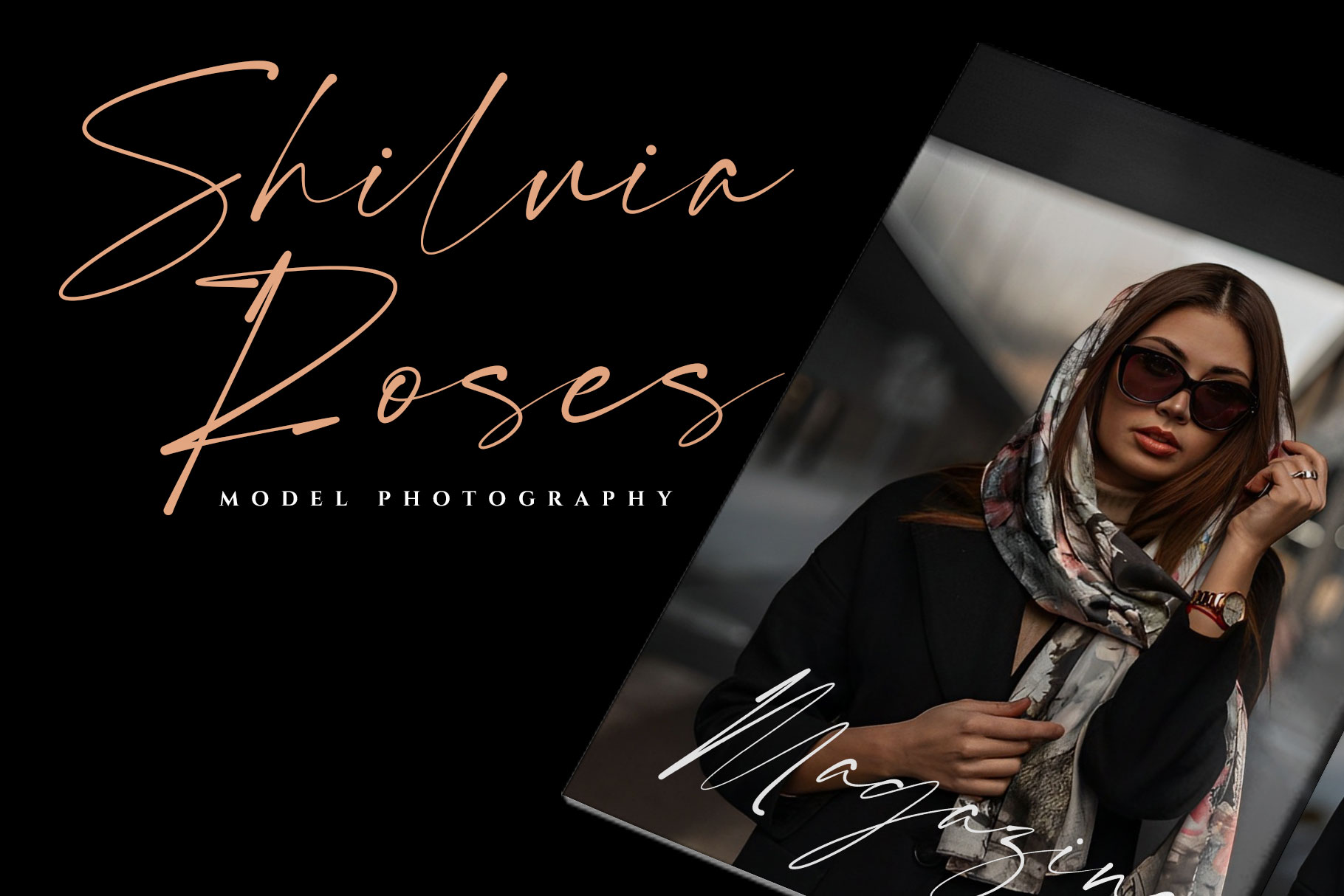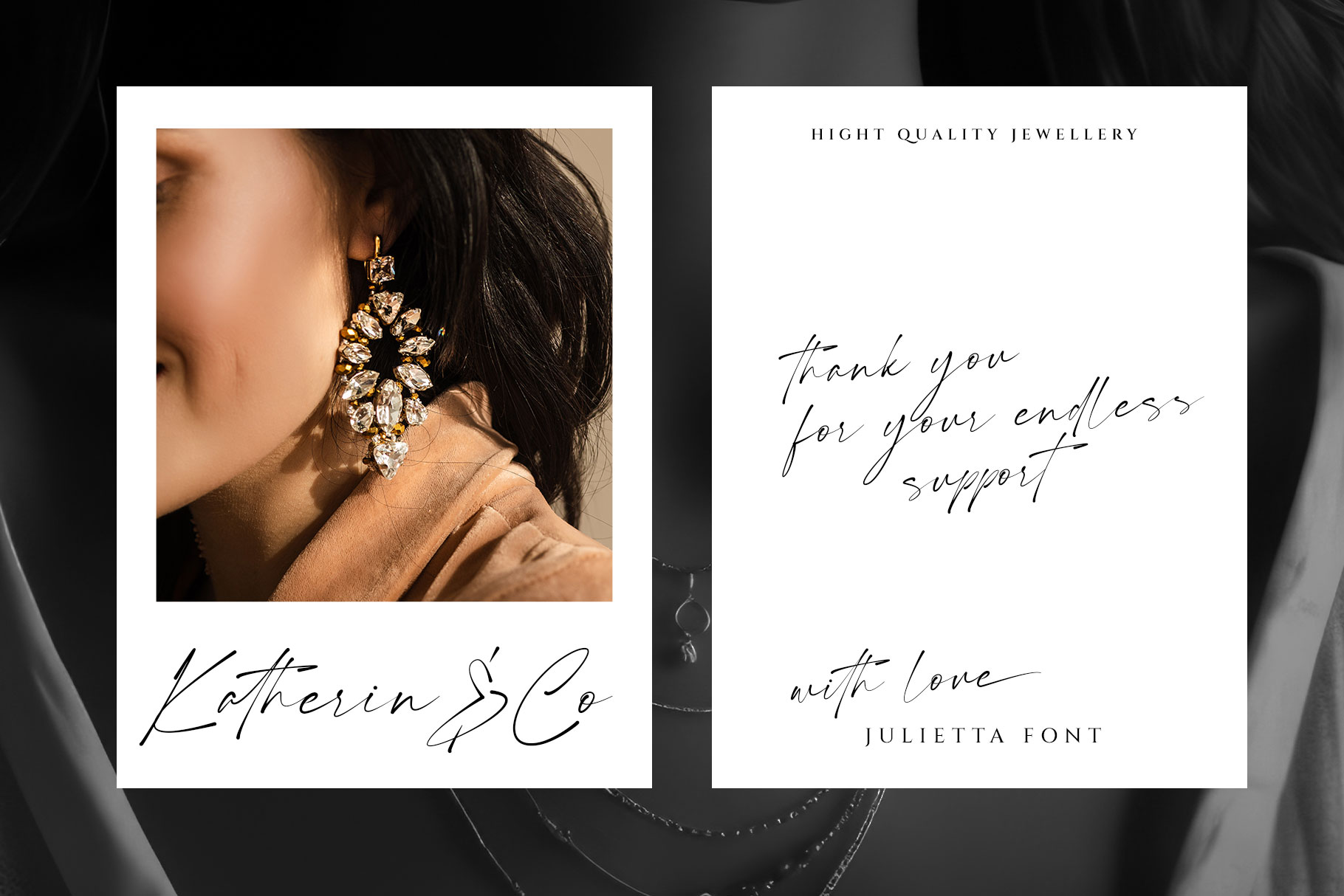
Jullieta is signature font embraces elegance and grace. Jullieta come with stylish curve and touch of handsign create sense of natural detail. Jullieta come with alternate, ligature, multilingual support and for swashes you can see in opentype feature.
Jullieta is a perfectly choice for any creative endeavor, chic, lifestyle design such as logos, advertisements, watermark on photography, stationery, branding project, display and magazine, invitation, corporate brand, product design, label, business project and other project with elegant taste.